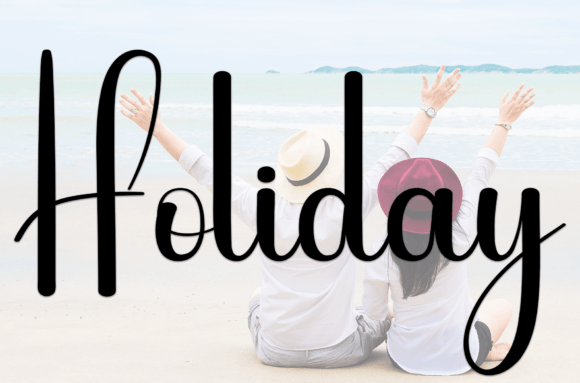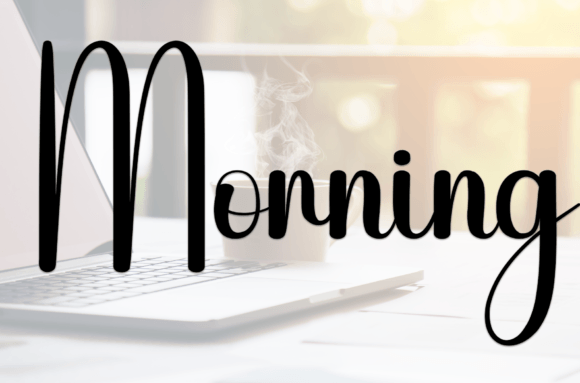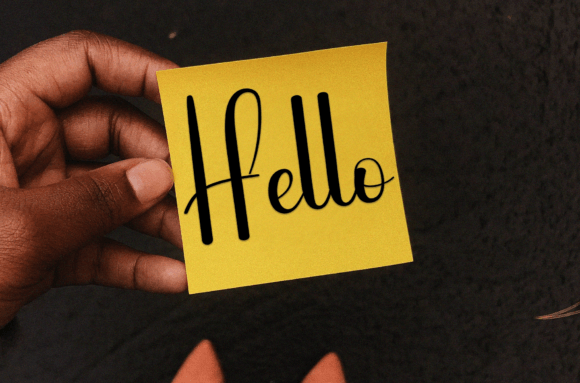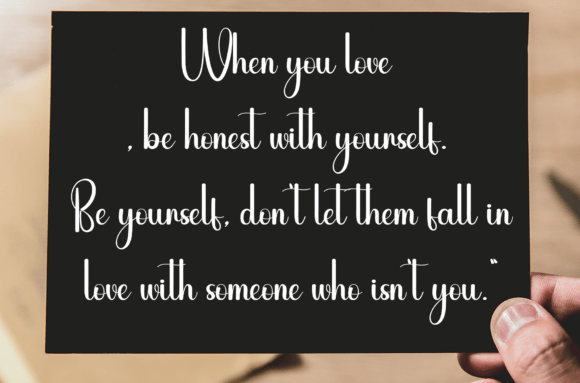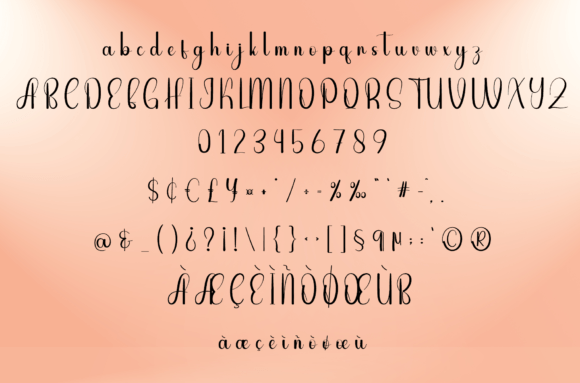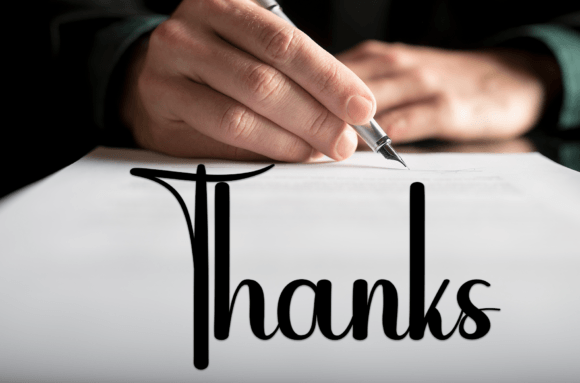
Citicon Font: Adding a Sweet and Friendly Touch to Your Designs
Are you looking for a font that can add a personal and warm touch to your designs? Look no further than Citicon Font! This sweet and friendly handwritten font is perfect for creating beautiful wedding invitations, cards, and other designs that require a lovely and elegant feel. In this article, we’ll take a closer look at Citicon Font, its features, and how you can use it to elevate your designs.
What is Citicon Font?
Citicon Font is a modern handwritten font that is designed to bring a sense of warmth and friendliness to your designs. Its fun and relaxed style makes it perfect for a variety of projects, from wedding invitations and cards to posters, flyers, and more. The font is carefully crafted to ensure that it is easy to read and looks great in both digital and print formats.
Key Features of Citicon Font
- Sweet and Friendly Style: Citicon Font has a unique and charming style that is sure to capture the attention of your audience.
- Handwritten Look: The font has a beautiful handwritten look that adds a personal touch to your designs.
- Easy to Read: Citicon Font is designed to be easy to read, making it perfect for body text and headings.
- Fun and Relaxed: The font has a fun and relaxed style that is perfect for creating designs that require a playful touch.
- Multilingual Support: Citicon Font supports multiple languages, making it a great choice for designers who work with clients from different parts of the world.
Use Cases for Citicon Font
Citicon Font is a versatile font that can be used for a variety of projects. Here are some use cases where Citicon Font shines:
- Wedding Invitations: Citicon Font is perfect for creating beautiful wedding invitations that require a personal and elegant touch.
- Cards and Stationery: The font is great for creating cards, stationery, and other paper products that require a friendly and approachable style.
- Posters and Flyers: Citicon Font can be used to create eye-catching posters and flyers that require a fun and playful style.
- Branding and Packaging: The font can be used for branding and packaging projects that require a unique and memorable style.
Tips for Using Citicon Font
Here are some tips for using Citicon Font in your designs:
- Pair it with Other Fonts: Citicon Font can be paired with other fonts to create a unique and interesting style.
- Use it for Headings and Body Text: The font can be used for both headings and body text, making it a great choice for designers who want to create a cohesive look.
- Experiment with Colors: Citicon Font looks great in a variety of colors, so don’t be afraid to experiment and find the perfect color scheme for your design.
Citicon Font is a sweet and friendly handwritten font that is perfect for designers who want to add a personal and warm touch to their designs. Its fun and relaxed style makes it ideal for a variety of projects, from wedding invitations and cards to posters, flyers, and more. With its ease of use and versatility, Citicon Font is a great choice for designers who want to create beautiful and memorable designs.